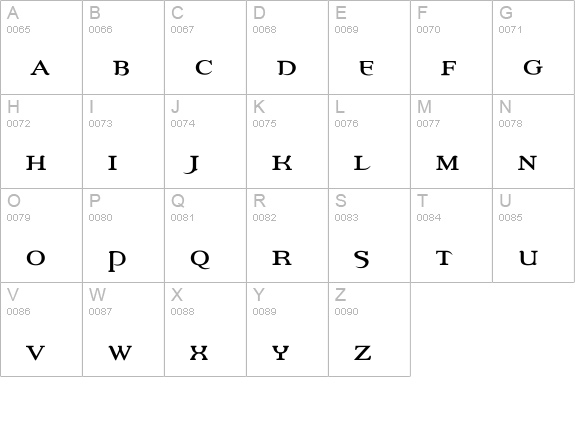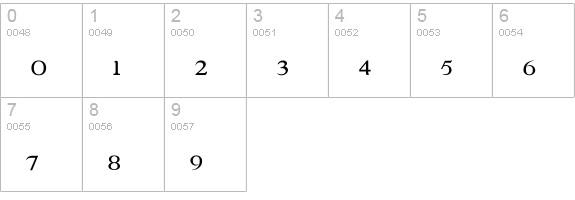
Percolator-Bold Font Details
Percolator-Bold is a strong, high-contrast variant in the Percolator typeface family \xE2\x80\x94 well suited to headlines, attention-grabbing titles, and strong calls-to-action.
Percolator-Bold is a striking and bold font that exudes power and confidence. With its strong and robust letterforms, this typeface commands attention and makes a bold statement in any design project. Designed with meticulous attention to detail, Percolator-Bold is perfect for headlines, titles, and logos that need to make a lasting impression. Its thick and sturdy strokes give it a sense of durability and resilience, making it ideal for projects in need of a reliable and impactful typeface. One of the best things about Percolator-Bold is that it is freely available to download at FontsMarket.com. This means that designers and creatives can easily access this exceptional font without any cost. Whether you are a professional graphic designer or a hobbyist looking to enhance your projects, the freely accessible Percolator-Bold font allows you to elevate your designs without breaking the bank. The versatility of Percolator-Bold is also worth noting. It can effortlessly adapt to various design styles, whether it be modern, retro, or even futuristic. Its clean and sharp edges ensure legibility, even at small sizes, making it suitable for both print and digital applications. Percolator-Bold's wide character set includes uppercase and lowercase letters, numbers, punctuation marks, and special characters, providing designers with a comprehensive toolkit to bring their creative visions to life. Its consistent and harmonious letterforms guarantee that your designs will have a cohesive and polished look. So, if you are in search of a bold and impactful font that is not only visually stunning but also freely available, look no further than Percolator-Bold. Download it today at FontsMarket.com and add a touch of strength and flair to your design projects.